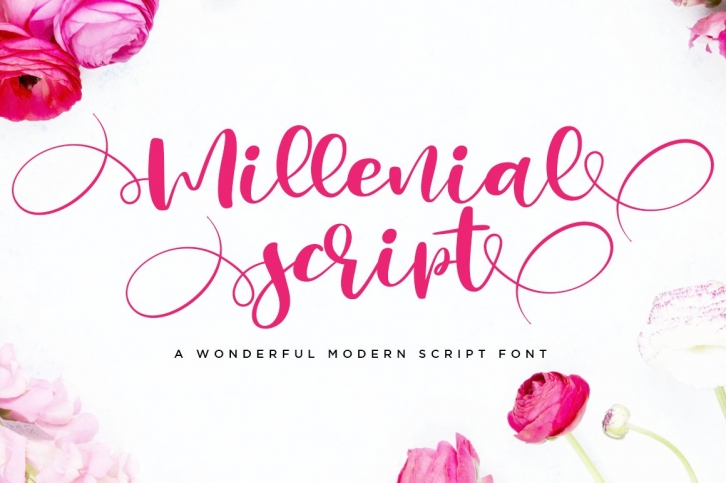
Millenial Script Modern Calligraphy is a beautiful font that was designed by Haksen. It's a great choice for designers and creatives who need such a font. It was released on July 7, 2020 and the file size is 5.68 MB. Millenial Script Modern Calligraphy may give a more youthful, expressive and casual look to your project. It is a very beautiful, refined, elegant, and high-quality font.